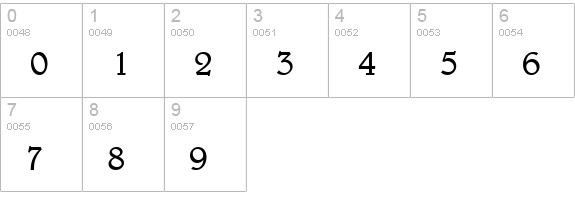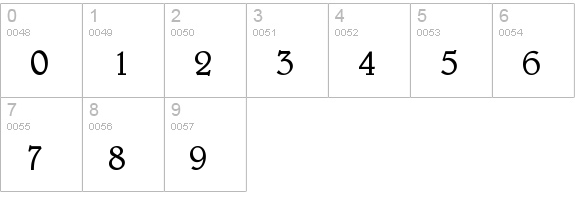
URWBerniniTLig Font Details
URWBerniniTLig is a beautifully crafted font that exudes elegance and sophistication. Its sleek and refined letterforms make it perfect for any design project that requires a touch of class. With its thin and delicate strokes, this font brings a sense of grace and charm to any text it adorns. The URWBerniniTLig font is not only visually appealing but also highly versatile. It can be used for a wide range of purposes, from creating stunning logos to designing eye-catching headlines. Its clean and legible design ensures that your message is conveyed with utmost clarity and professionalism. What makes URWBerniniTLig even more appealing is the fact that it is available for free. Yes, you read that right! This amazing font can be downloaded at no cost from FontsMarket.com. Now you can enhance your designs without having to worry about breaking the bank. Whether you are a professional designer or a hobbyist, URWBerniniTLig is a font that will surely make a lasting impression. Its timeless beauty and effortless grace will elevate your designs to new heights. So why wait? Head over to FontsMarket.com now and get your hands on this amazing font for free!